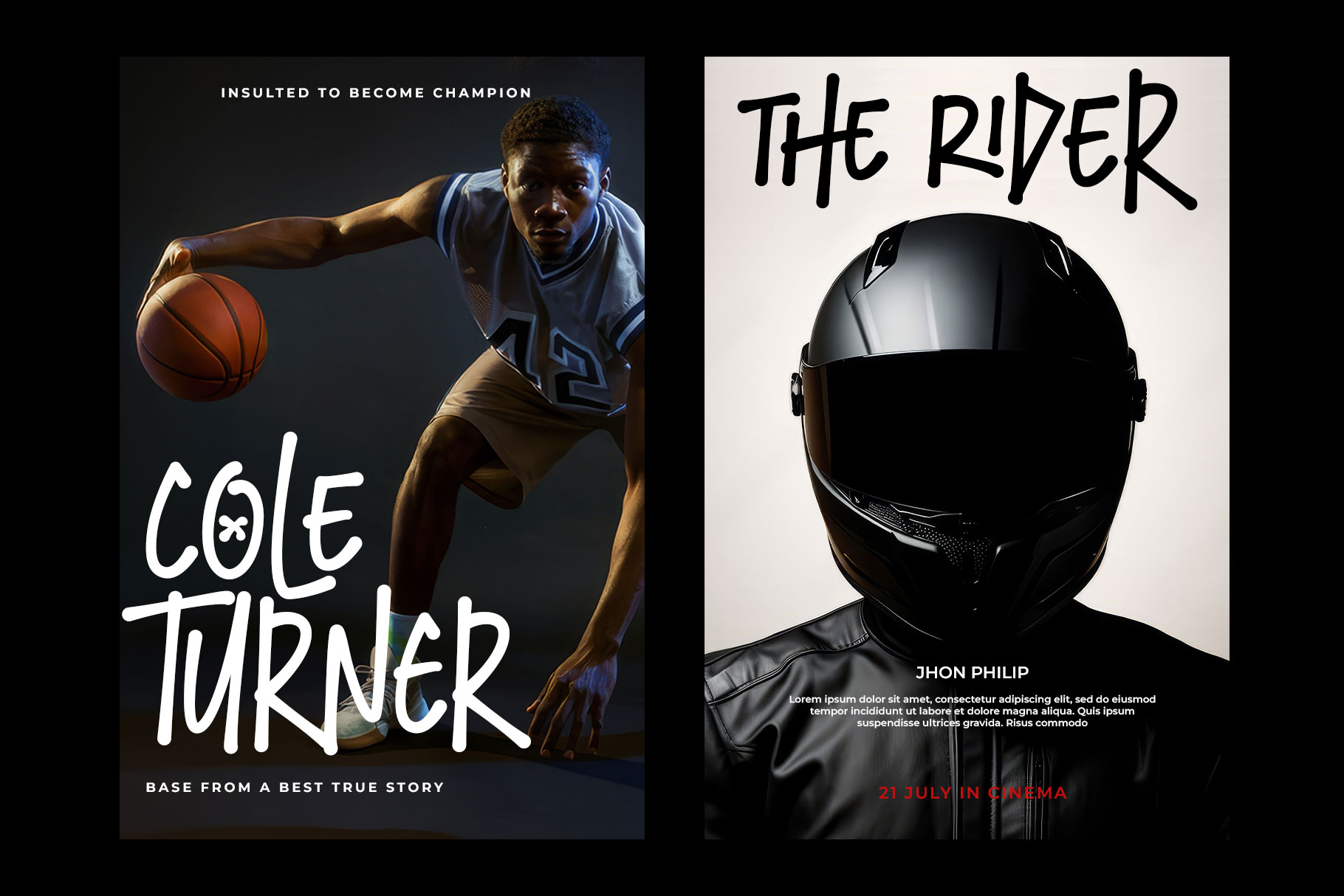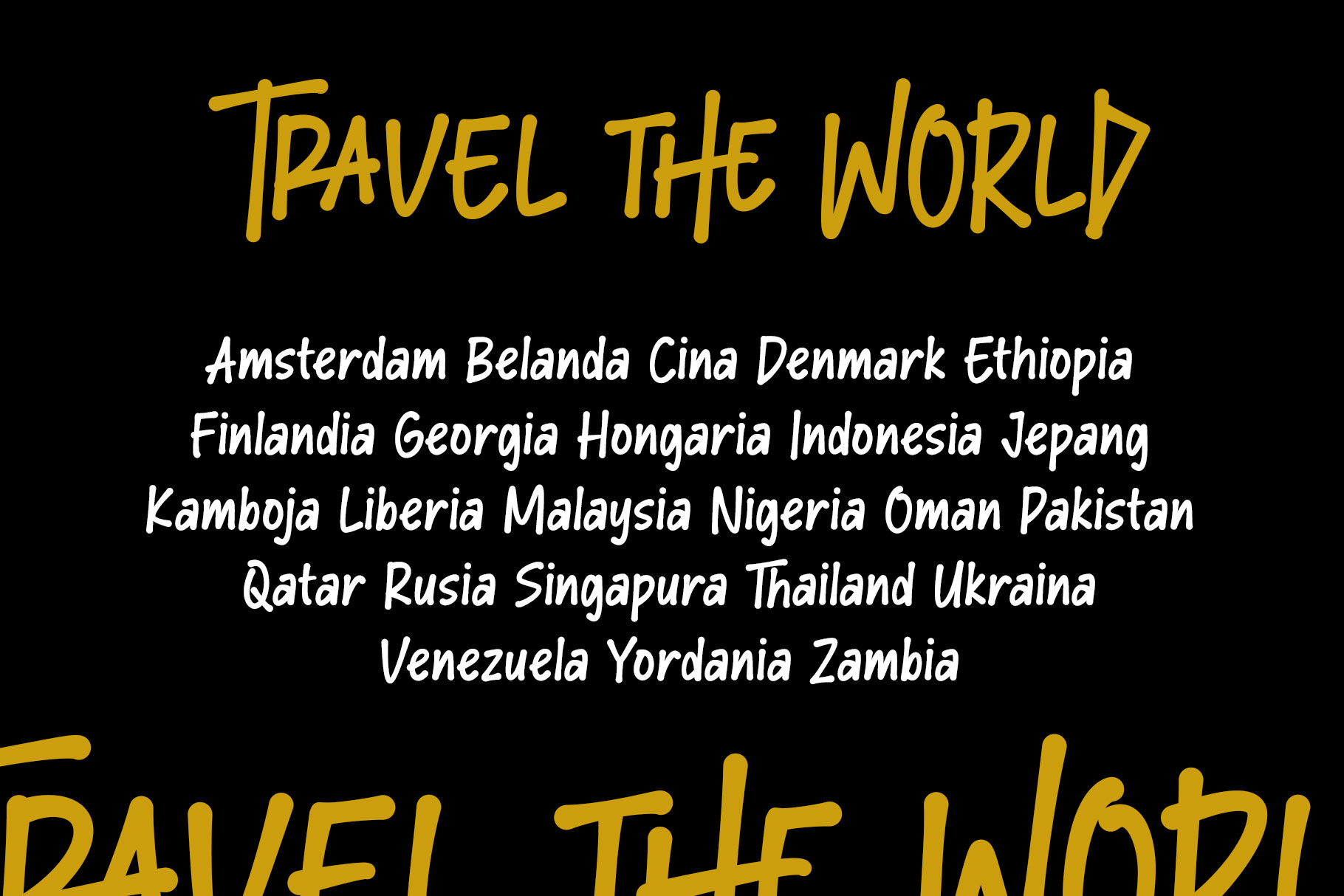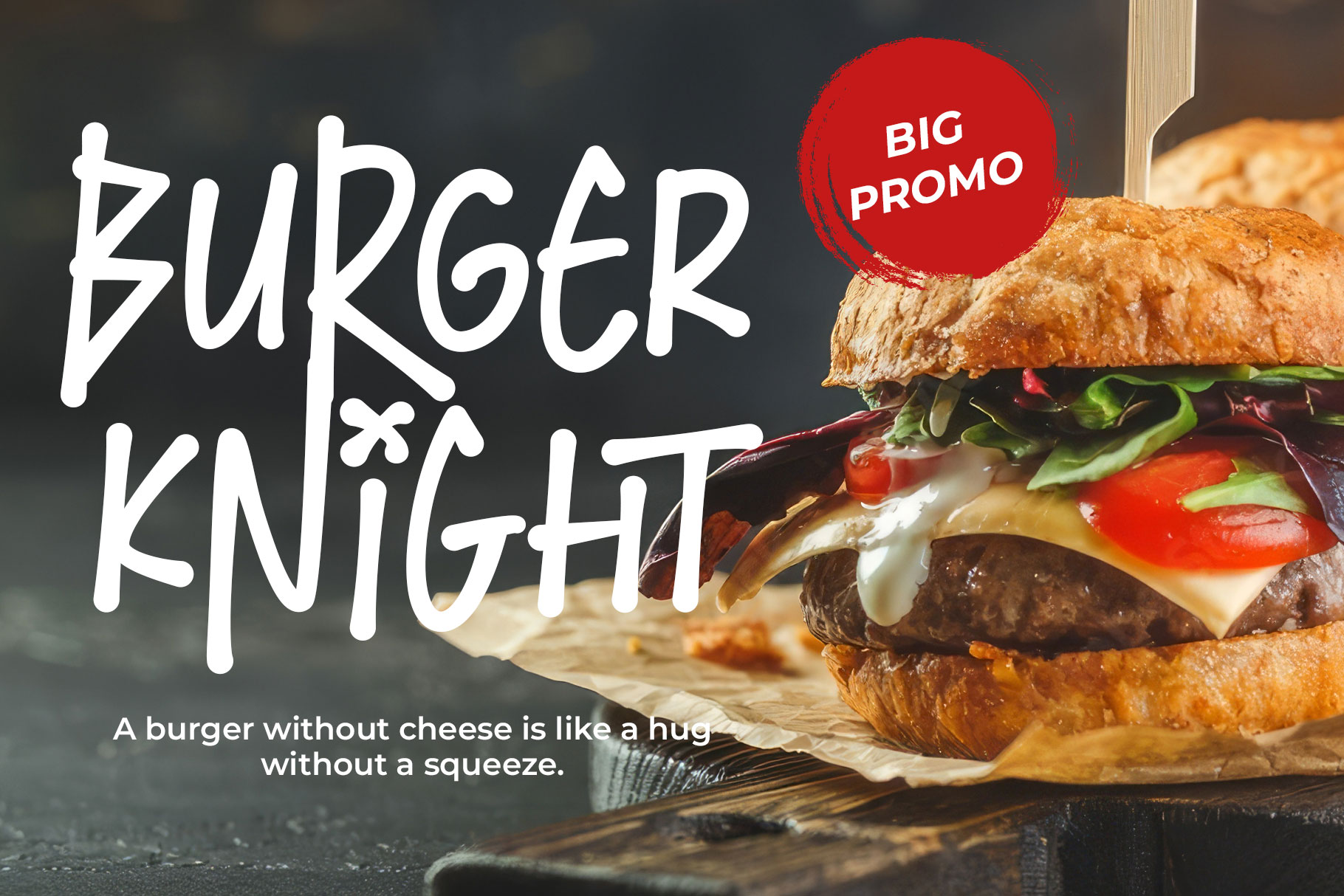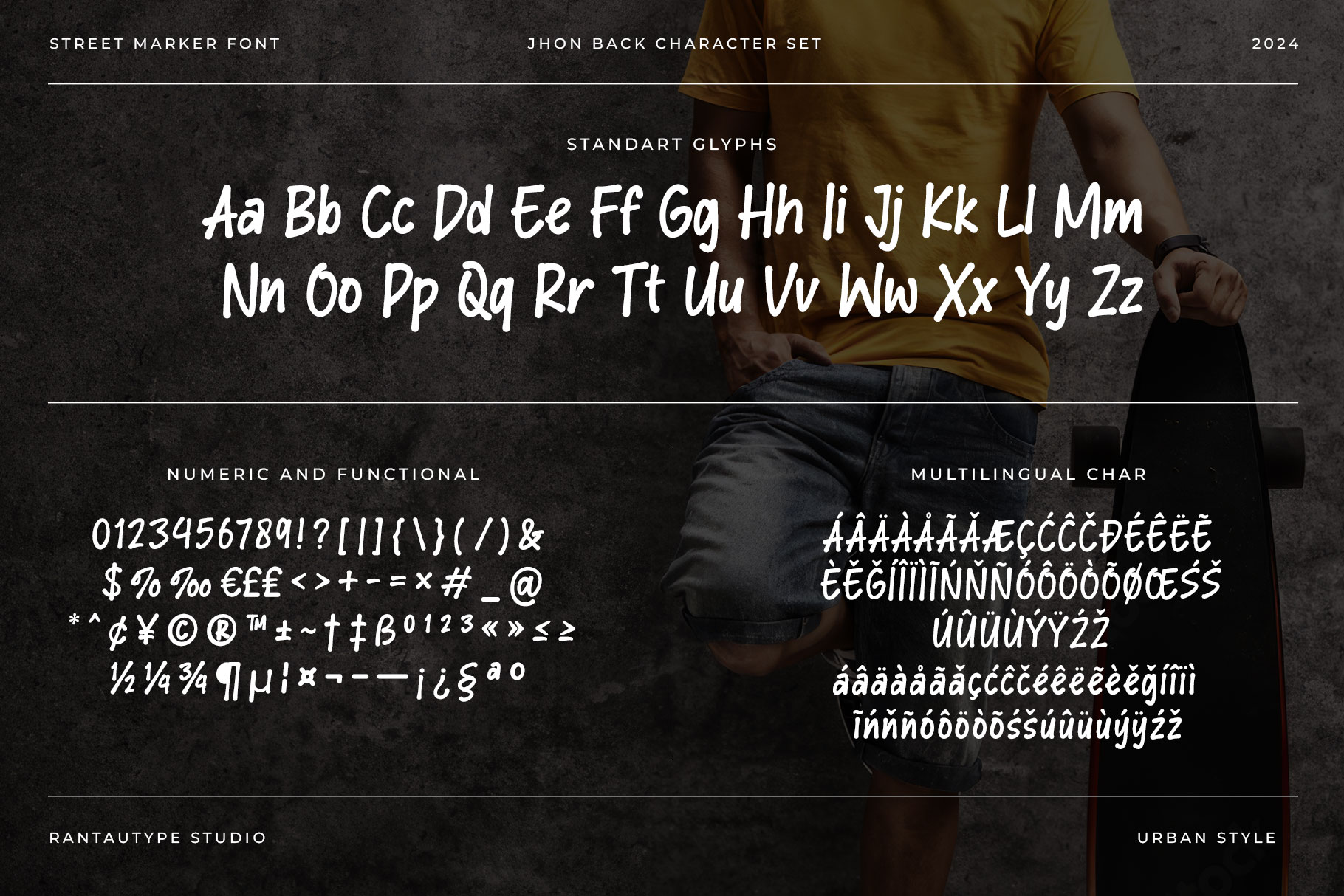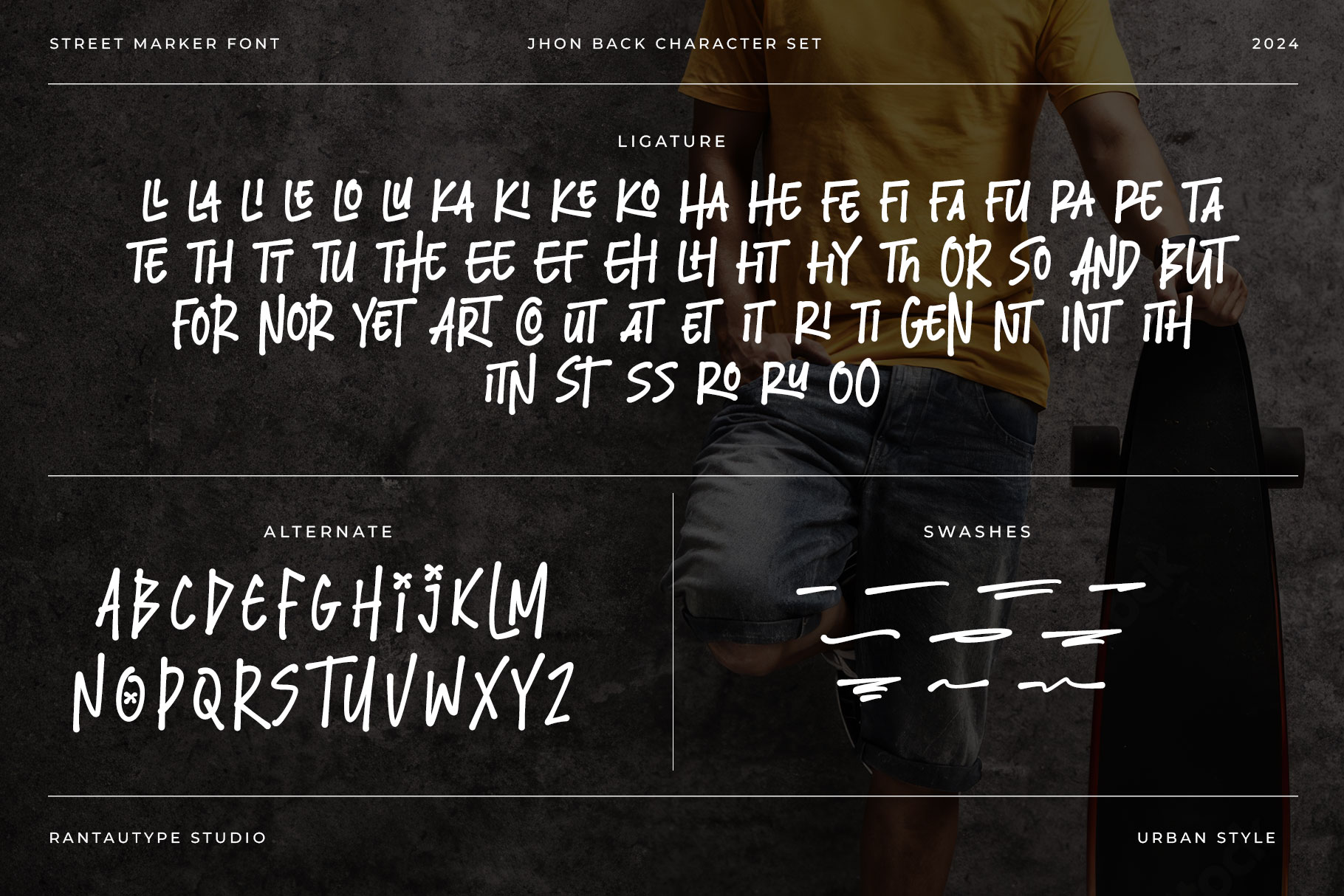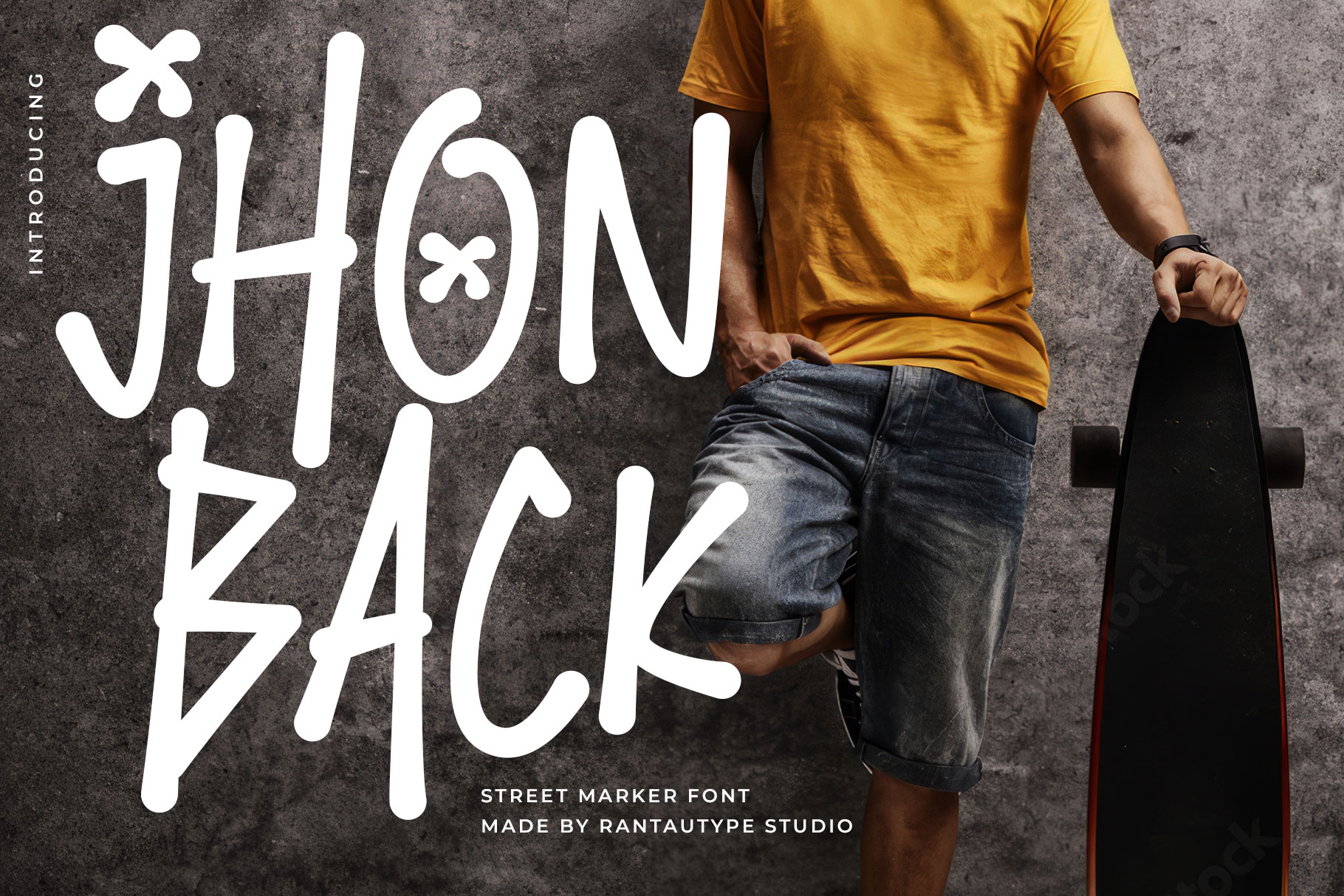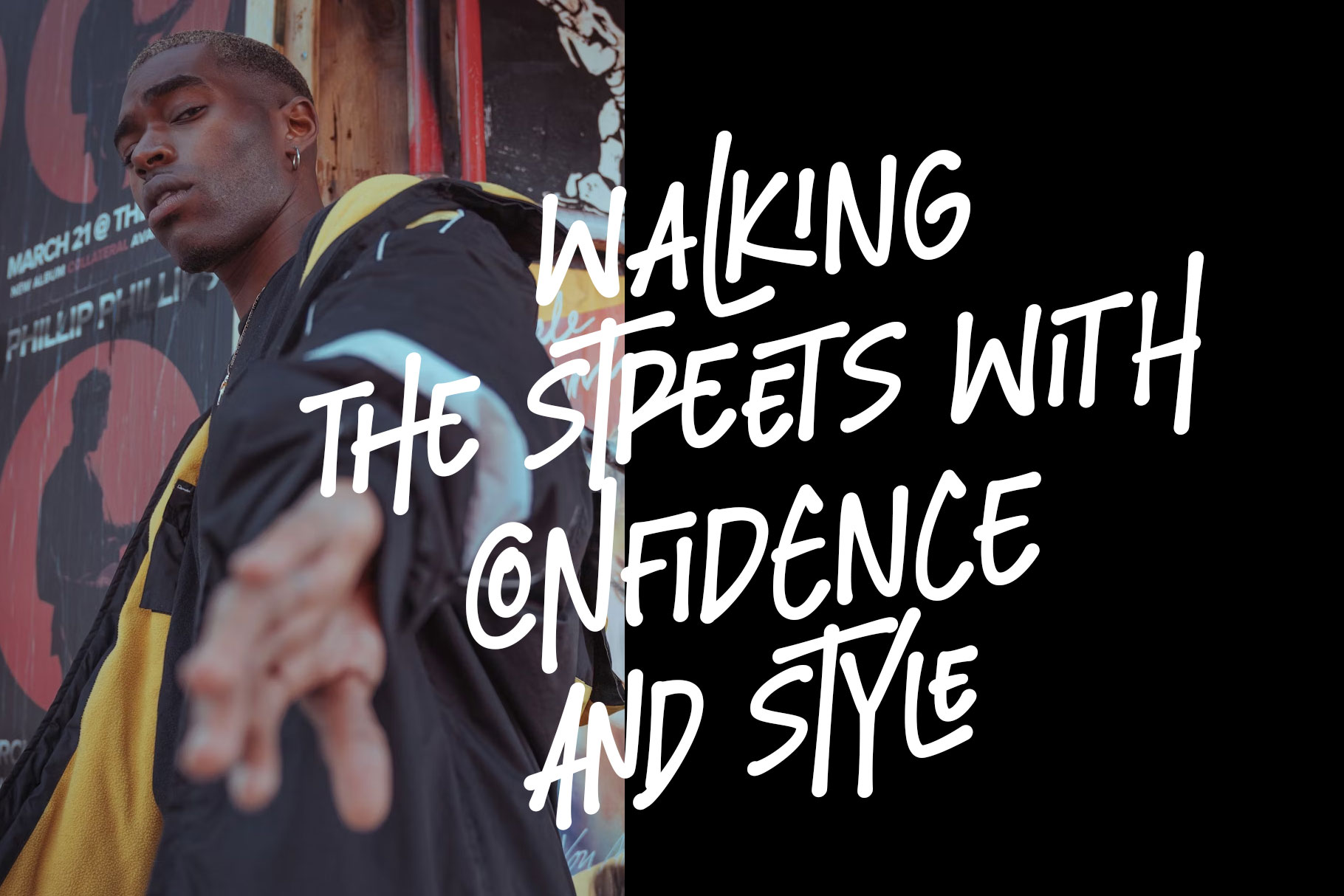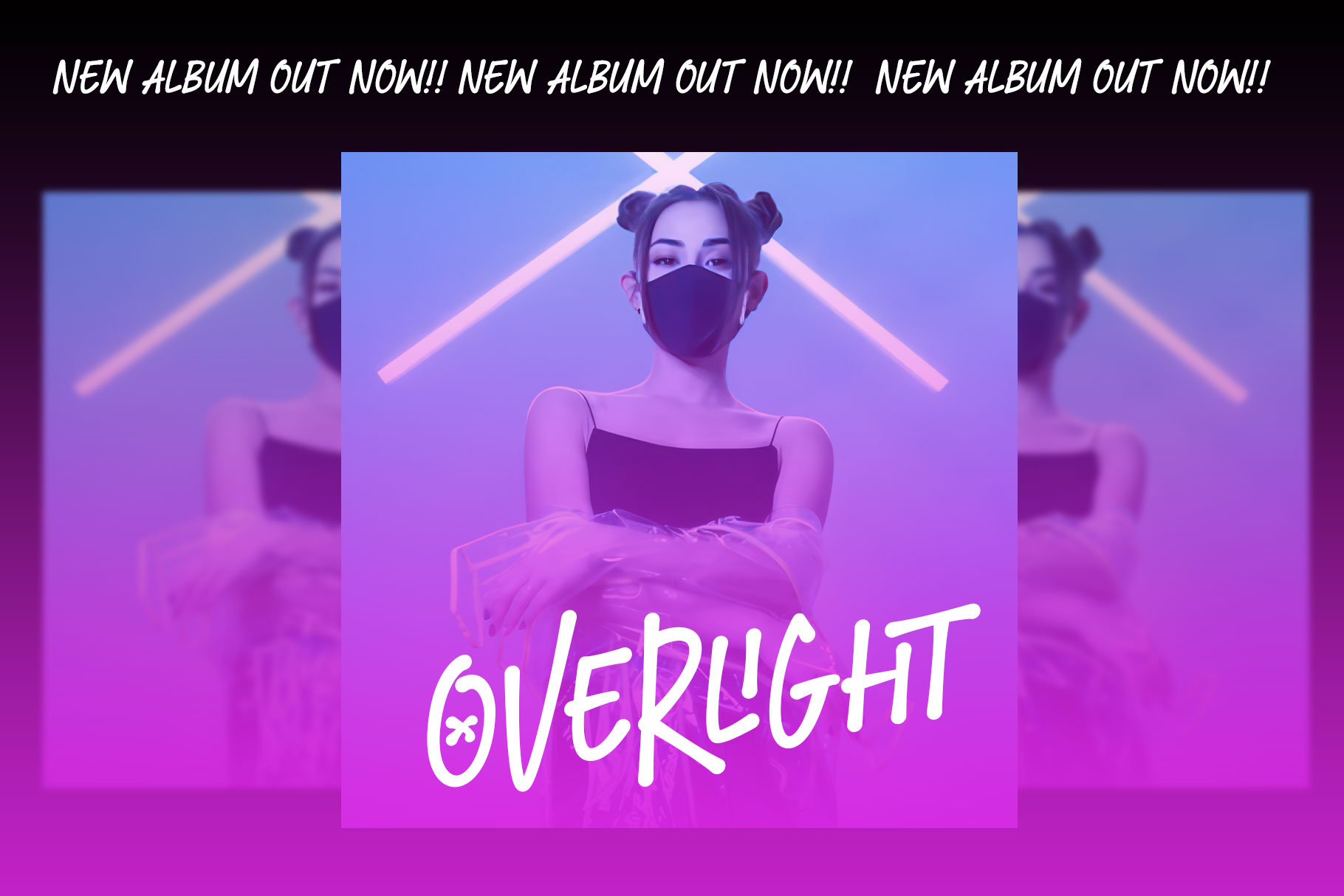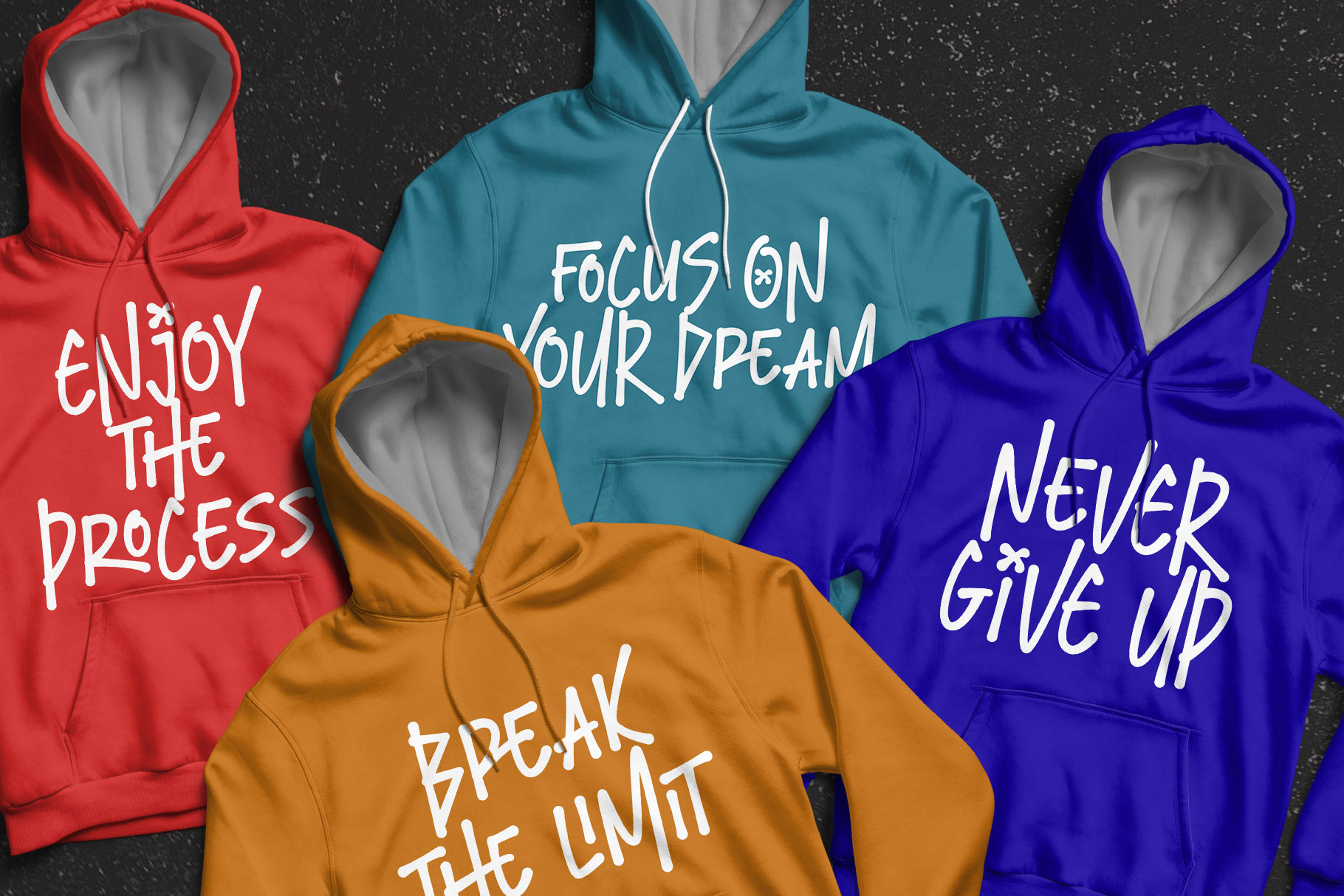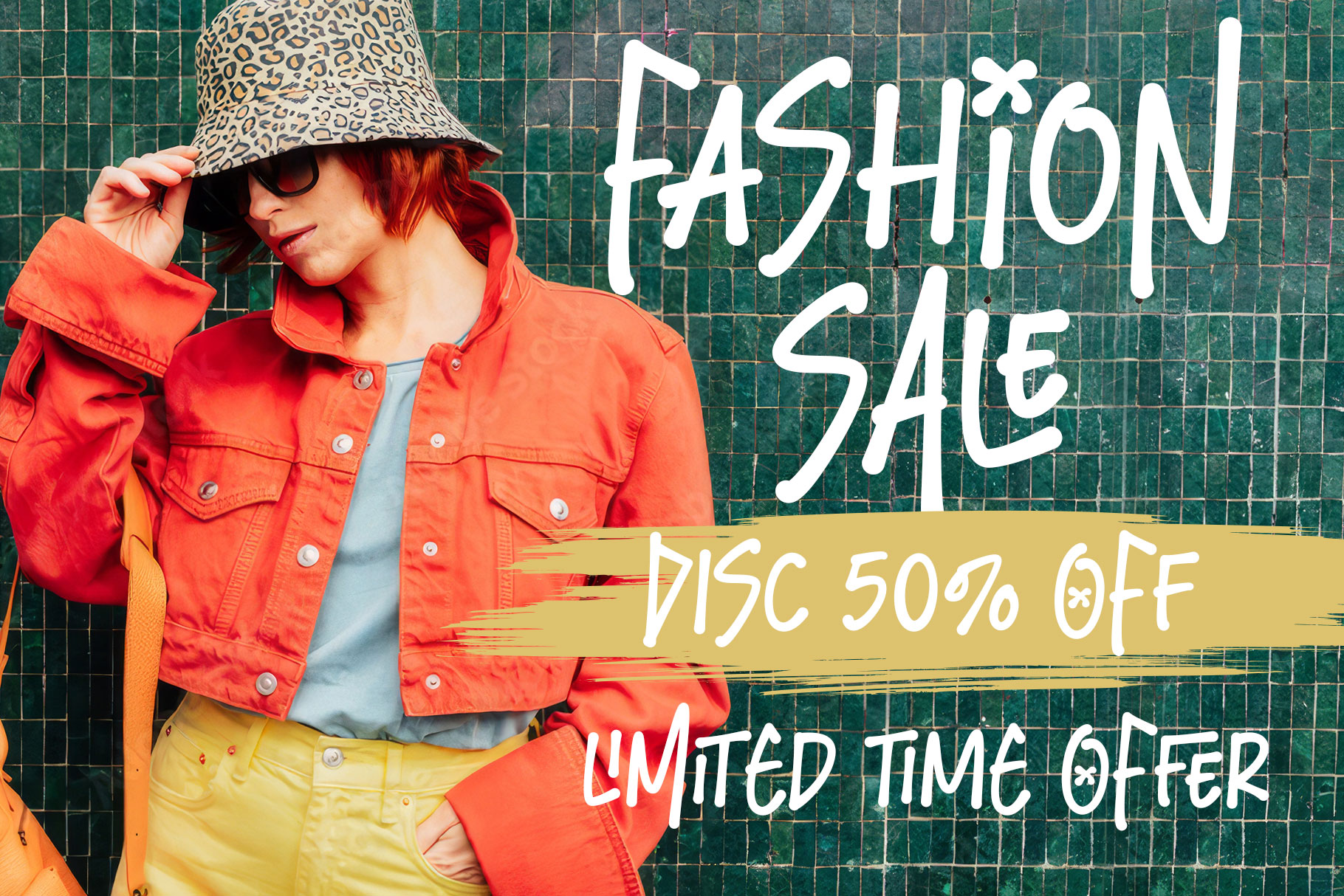
Jhon Back Street Marker font
Jhon Back is marker street font inspire by aesthetic of graffity. Jhon back bring hand-brush and strong style to create a true street soul. Jhon back come with flow and dinamic shape give a unique touch and keep the spirit of street style. Jhon back come with alternate and ligature, so that you can mix and match to suit your creativity.
Jhon Back is a perfectly choice for any creative endeavor, lifestyle design such as logotype, advertisements, watermark on photography, branding project, display and magazine, invitation, corporate brand, product design, label, business project and other project with street taste.